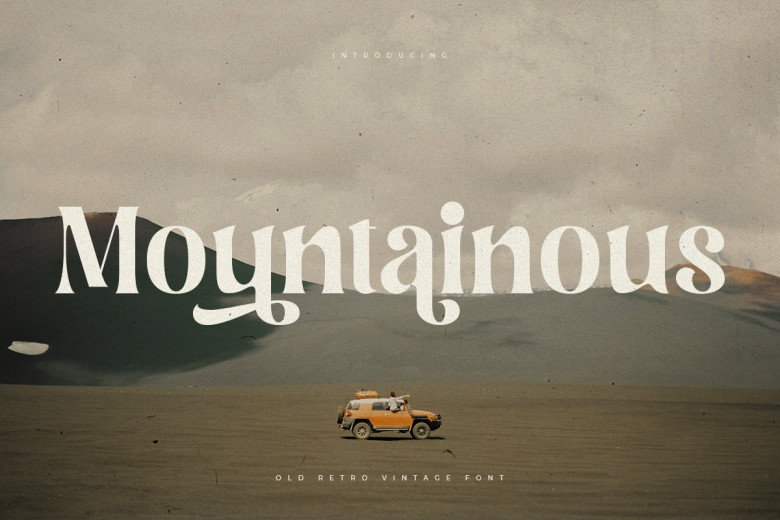
Montainous Font
Montainous is an Old Retro Vintage Font, specially designed in Display style for Headline Vintage Retro Project, distinctive branding requirements, extra alpha in a unique style, which is especially ideal for giving value to your brand. It’s so nice to tap into designers or product owners that require solutions to bring out that look of uniqueness and old age to their designs.
Montainous Serif Font